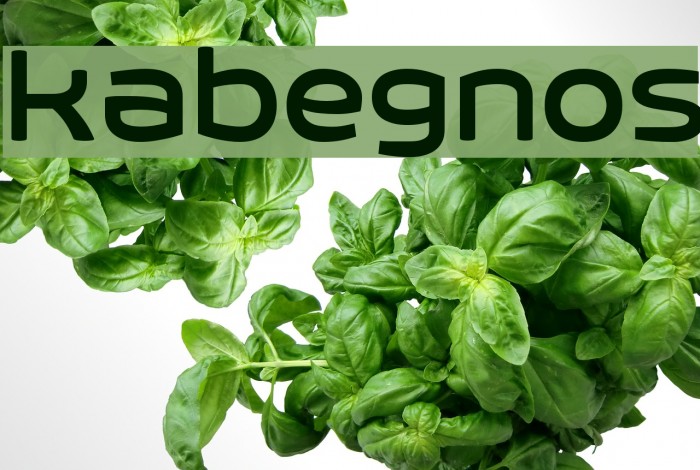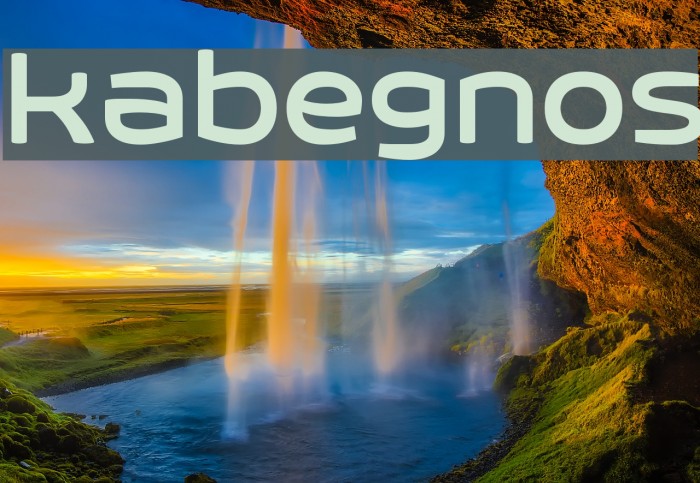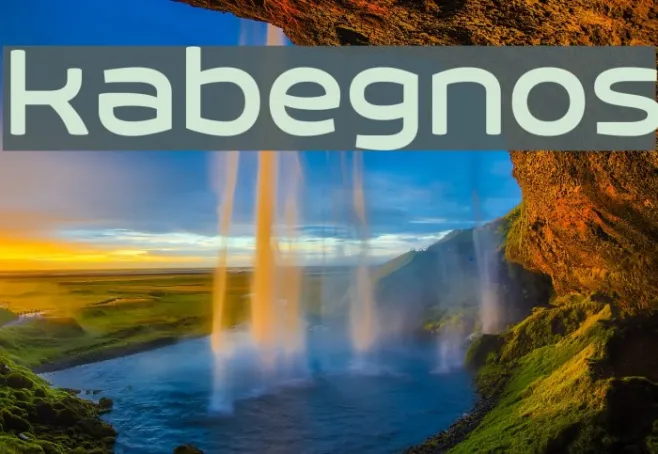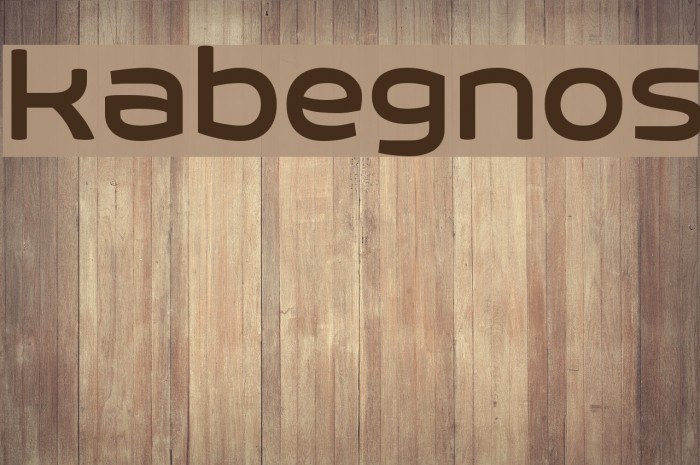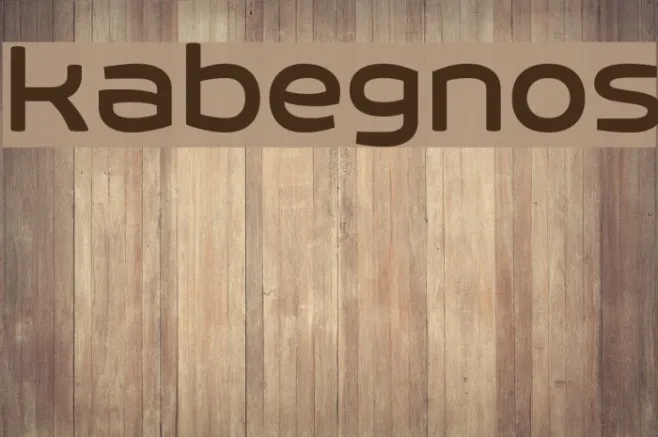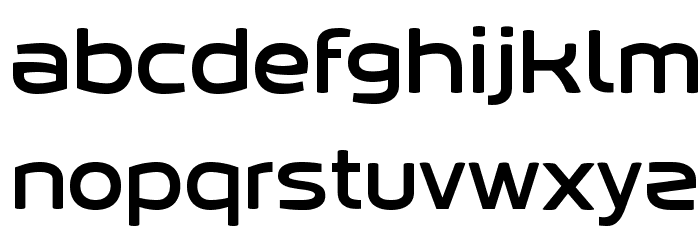
kabegnos Font
This font features a modern and sleek design with smooth, rounded edges and a uniform stroke width. The characters exhibit a clean and minimalist aesthetic, making it suitable for contemporary design projects. The lowercase letters are well-proportioned, with a consistent height and width that contribute to its readability. The font's simplicity and elegance make it versatile for various applications, from digital interfaces to print media.
A modern, sleek font with rounded edges and uniform stroke width.
• Proposed Projects: Ideal for digital interfaces, branding, advertising, and print media.